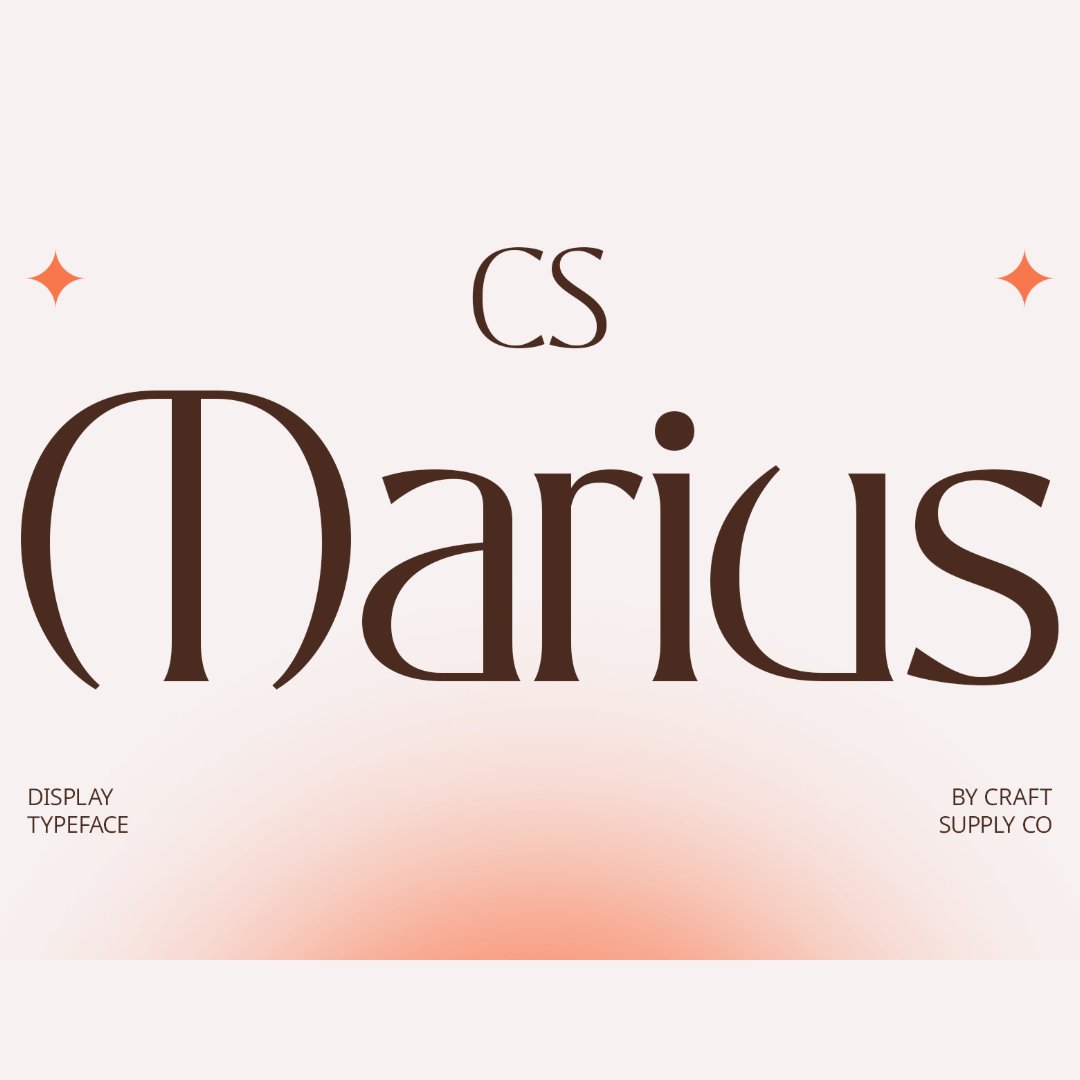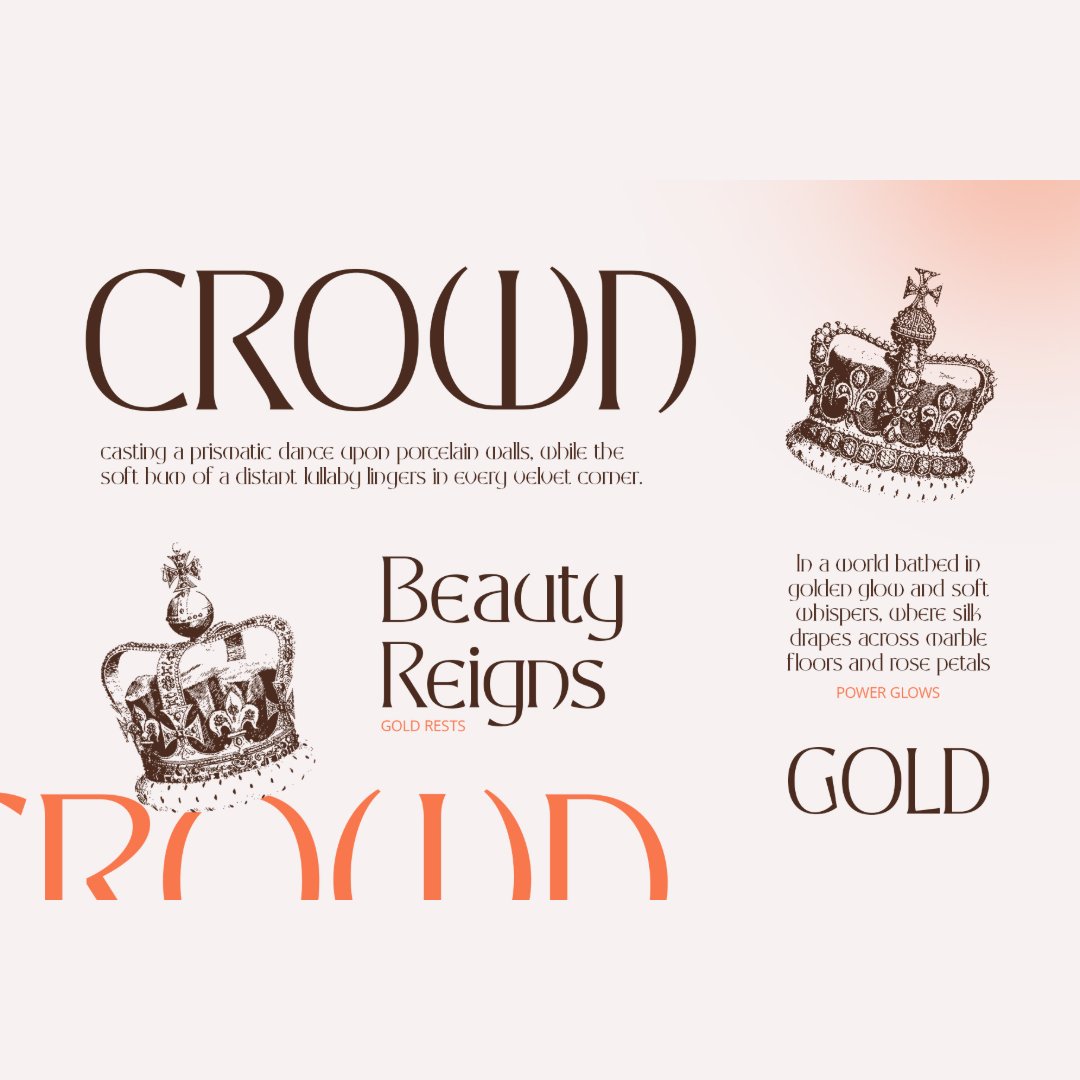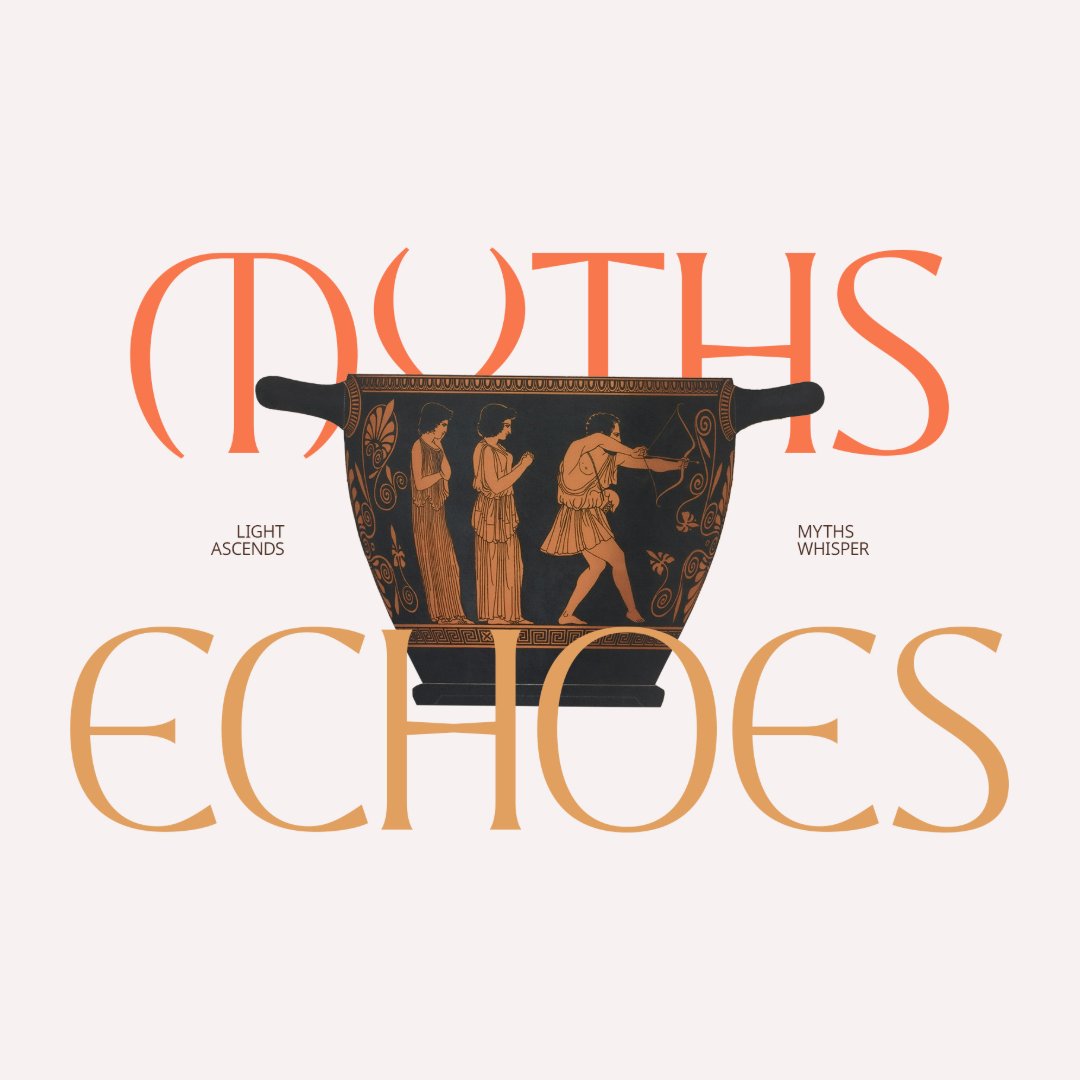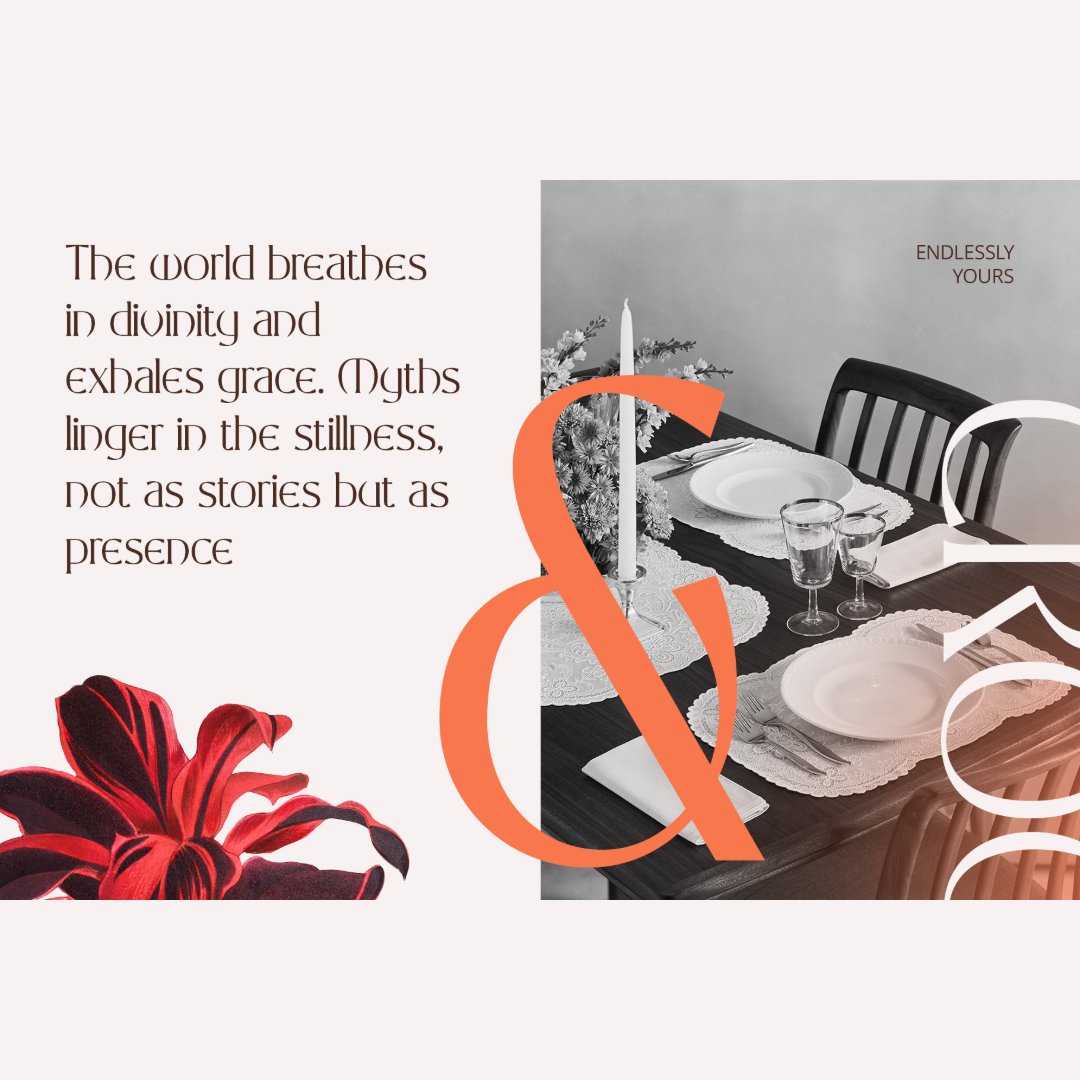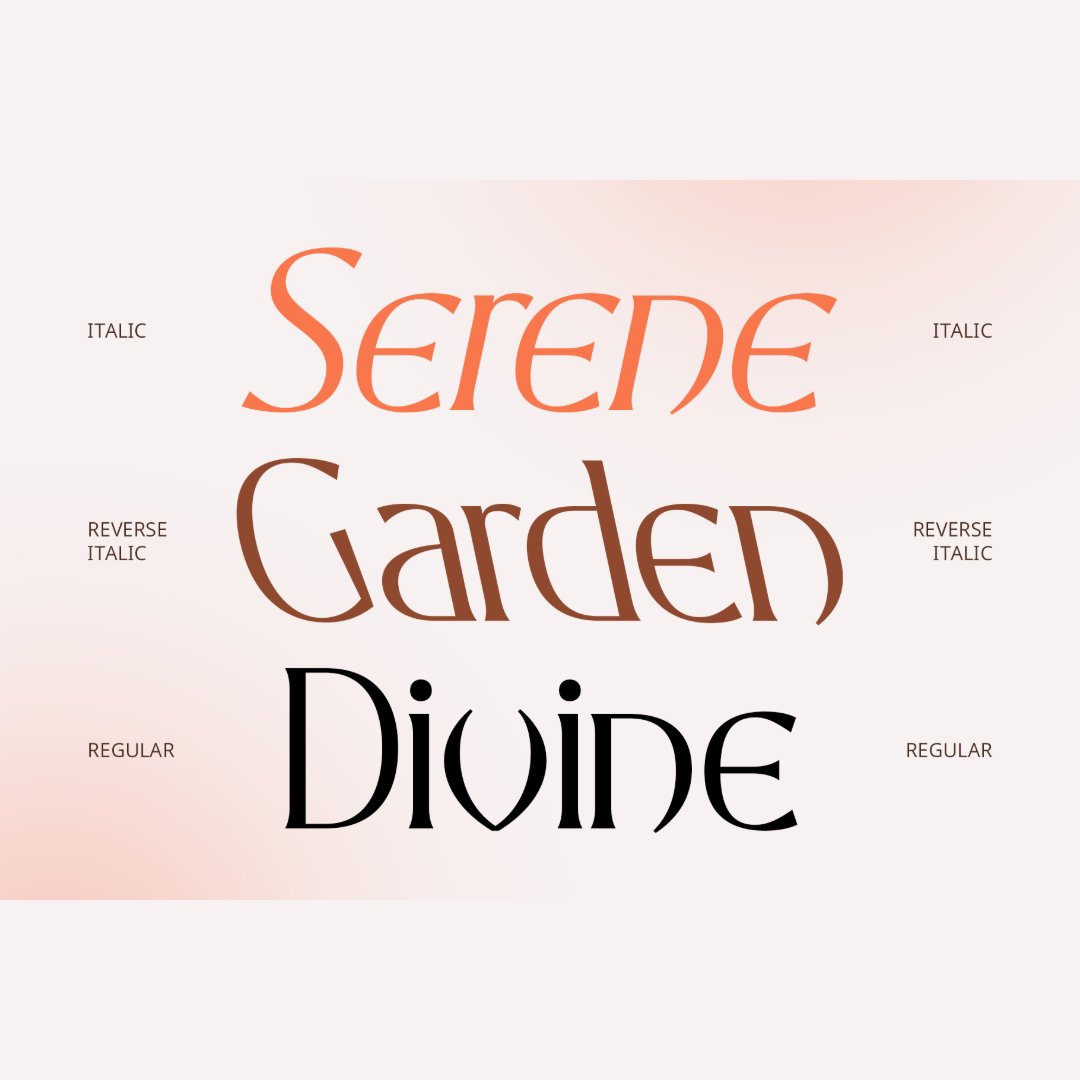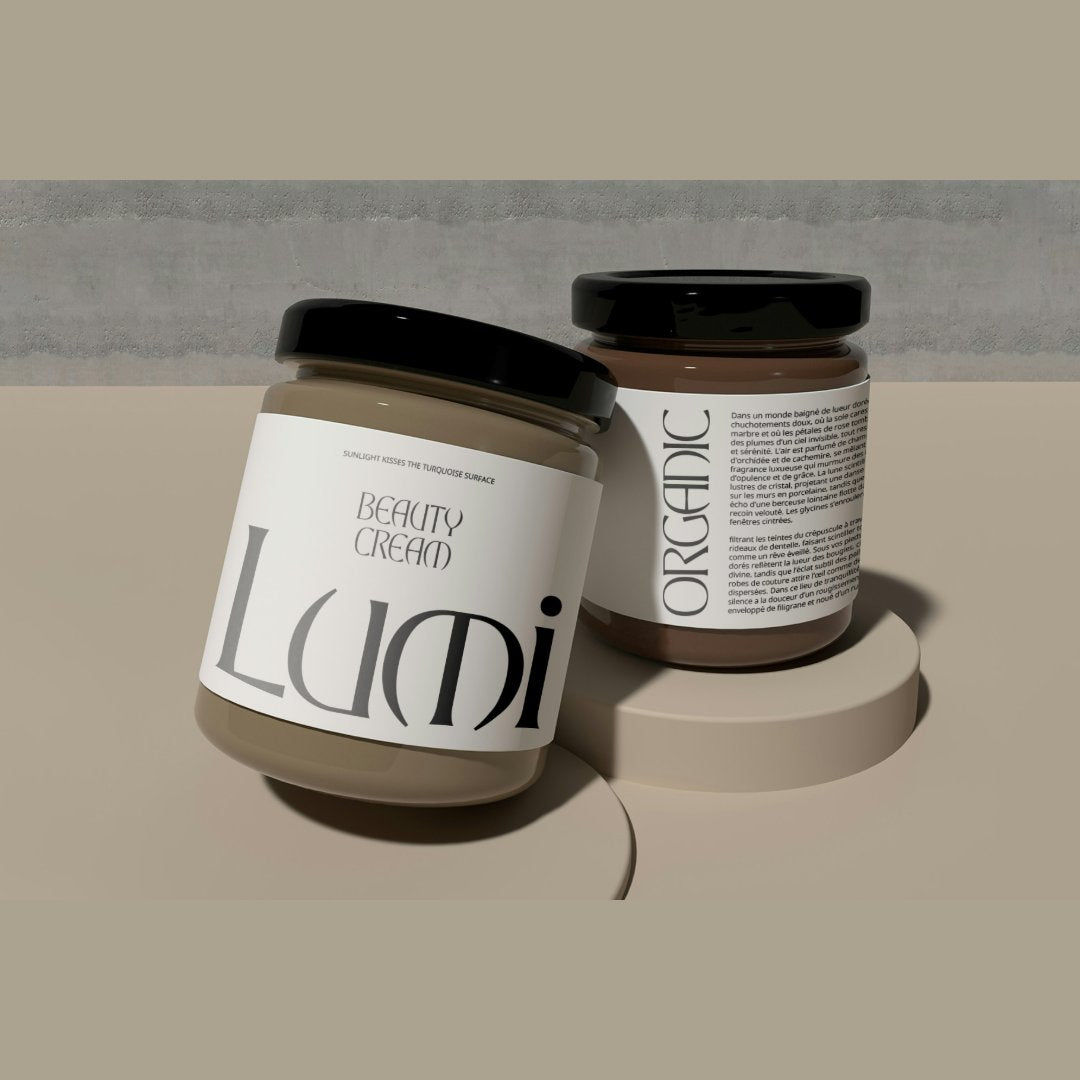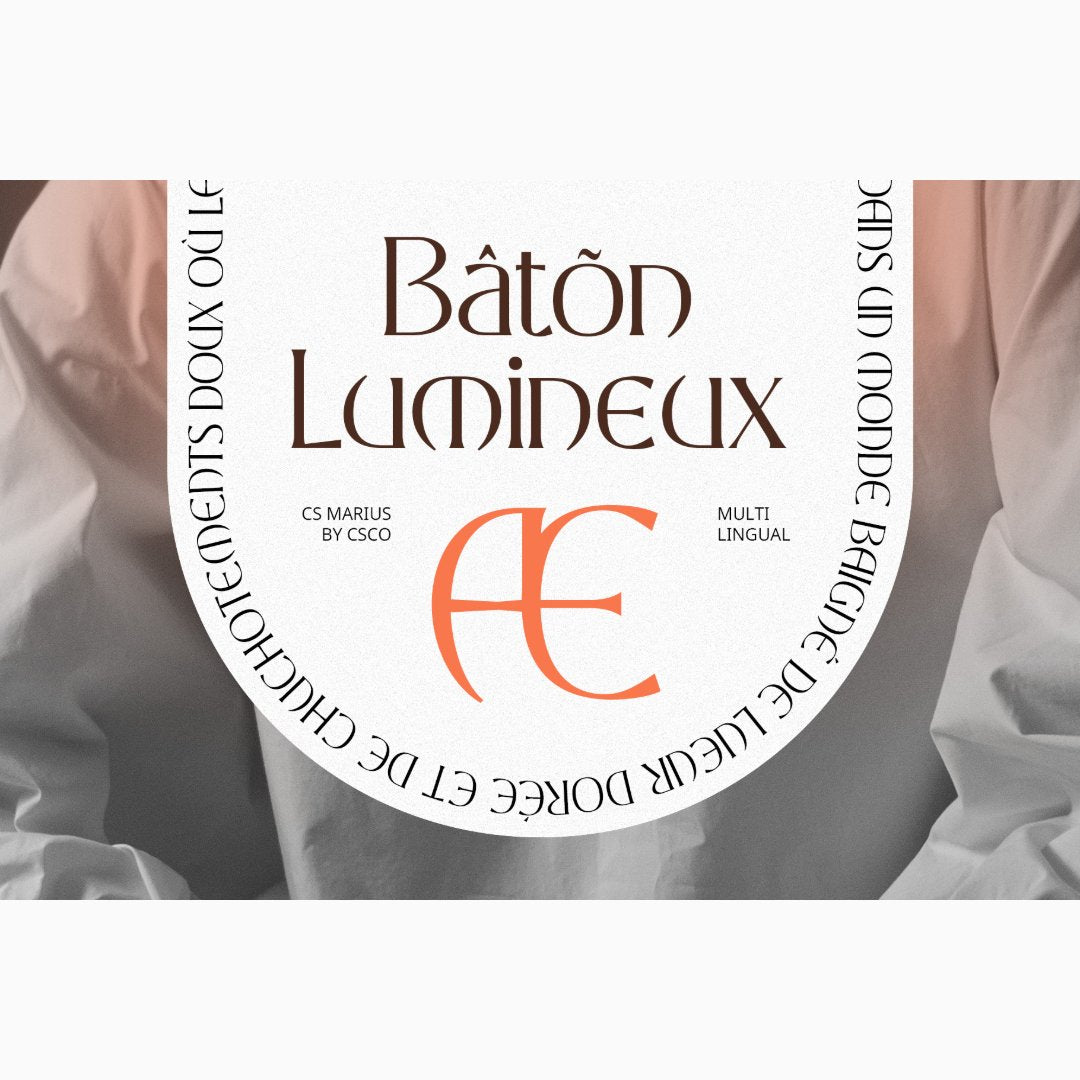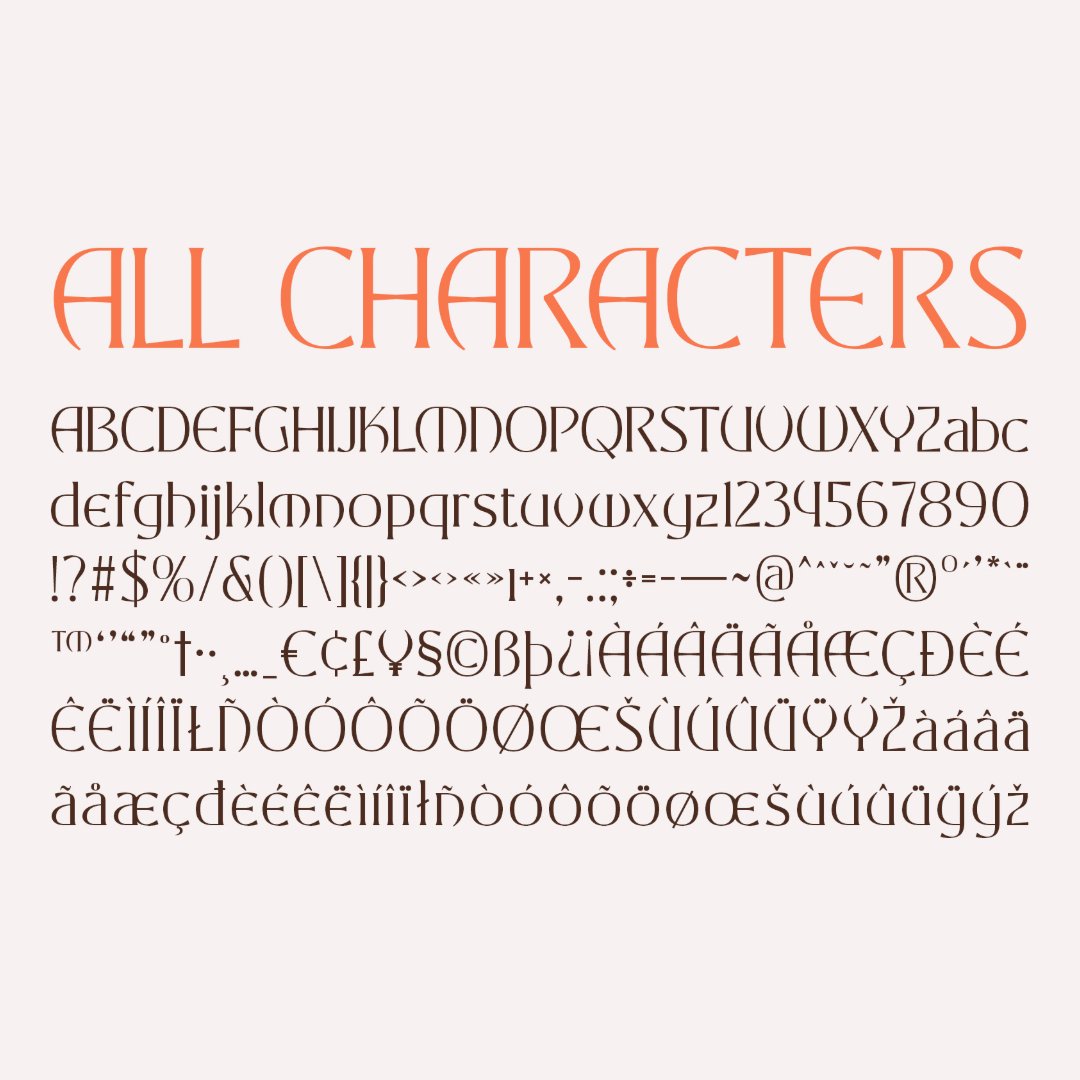
CS Marius – Classic Font
CS Marius – Classic Font: Timeless Elegance with a Greek Influence
Majestic Classical Meets Contemporary Design
CS Marius is a modern display serif font that draws inspiration from the elegance of Greek-style lettering. Its bold, commanding presence is infused with classical elements, yet refined with a clean, contemporary touch. The result is a font that feels both regal and relevant, bridging centuries of design heritage.
Architectural Serifs with Proportional Balance
The bold, well-proportioned serifs of CS Marius reflect the grandeur of ancient Greek architecture, evoking a sense of stability, authority, and sophistication. Each letterform is carefully crafted to achieve harmony between strength and grace, making it perfect for impactful display use.
Perfect for Classical Luxury Branding
Ideal for titles, high-end logos, and premium branding, CS Marius projects an air of prestige and refinement. Its aesthetic blends tradition with modernity, making it a natural choice for projects that aim to convey timeless luxury in a fresh, stylish way. Its classic influence adds depth and personality, while its modern execution ensures it feels fresh and relevant.
CS Marius Regular
CS Marius Italic
CS Marius Reverse Italic
CS Marius – Classic Font is a modern display serif typeface inspired by Greek-style lettering, featuring bold, well-proportioned serifs that combine classical elegance with contemporary design. The font package includes CS Marius Regular, Italic, and Reverse Italic styles, making it suitable for a variety of branding and display applications.